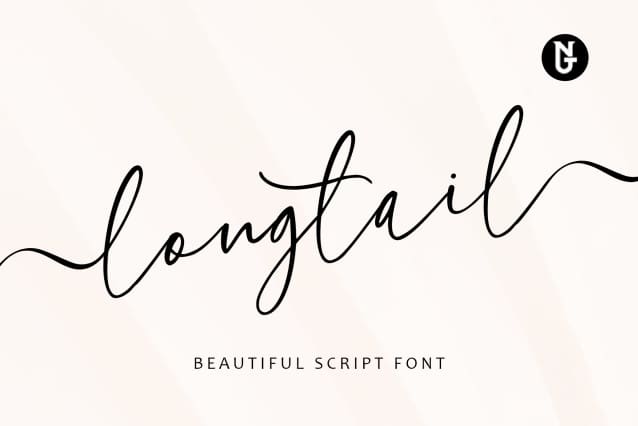
Longtail Handwritten Font
Longtail Handwritten Font is built with bold and curvy characters, Perfect if you need fun for your projects. This font is great for casual, fun events, vacation, beach, summer,
Designer Name: Nestype Studio